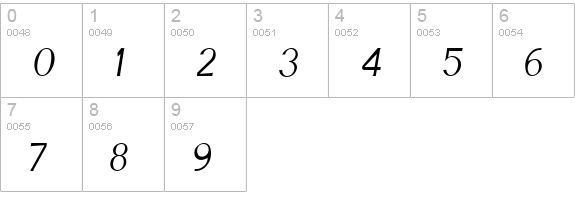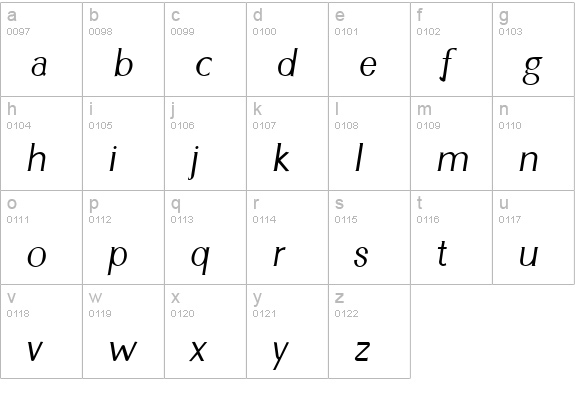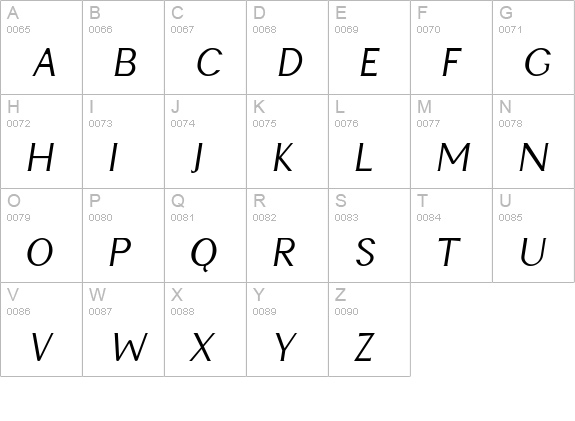
Cyn Italic Font Details
Cyn Italic is a distinctive, italic variant in the Cyn typeface family \xE2\x80\x94 well suited to design and typography projects.
Introducing Cyn Italic font, the epitome of elegance and sophistication. This exquisite typeface exudes a sense of timeless beauty with its sleek and graceful curves. Designed with meticulous attention to detail, every letter of Cyn Italic showcases the perfect balance between strength and delicacy. With its effortlessly smooth strokes, Cyn Italic font embodies a sense of fluidity that captivates the eye. Its unique italicized design adds a touch of artistic flair, making it perfect for creative projects, branding, and editorial work. Whether used for a headline or body text, this font effortlessly conveys a sense of refinement and class. But what truly sets Cyn Italic font apart is its versatility and accessibility. It is available for free download at FontsMarket.com, making it an excellent choice for both personal and commercial projects. Whether you're a seasoned designer or just starting out, Cyn Italic font offers a world of possibilities at your fingertips. Imagine the possibilities of using Cyn Italic font in your next project. From elegant wedding invitations to stylish magazine layouts, this font will elevate your designs to new heights. Its legibility and readability ensure that your message will be conveyed with clarity and impact. Don't miss out on the opportunity to add Cyn Italic font to your collection. Download it for free at FontsMarket.com and unlock a world of design possibilities. Embrace the beauty and versatility of this stunning typeface, and let it inspire your creativity like never before. Cyn Italic font is the perfect companion for those who appreciate the power of typography and the art of visual communication.